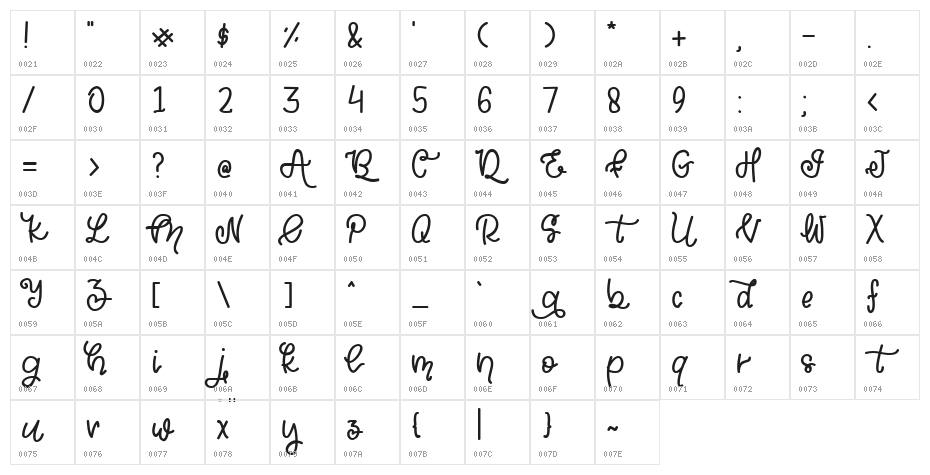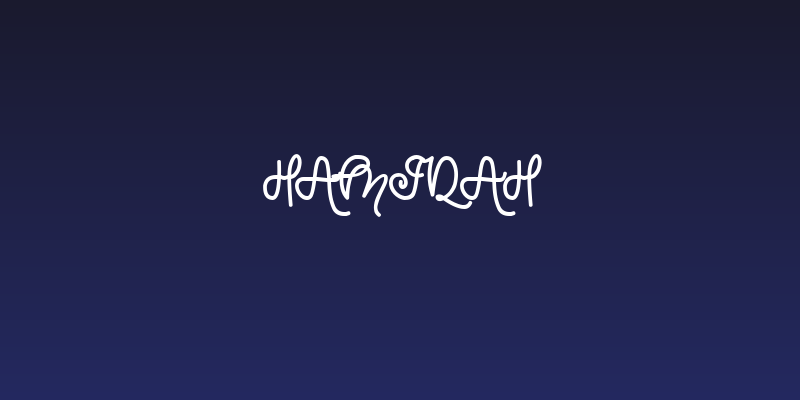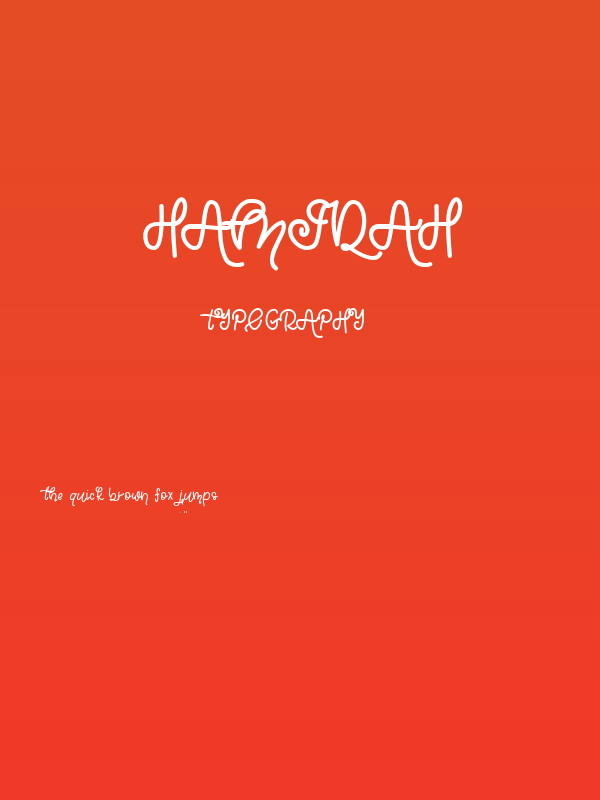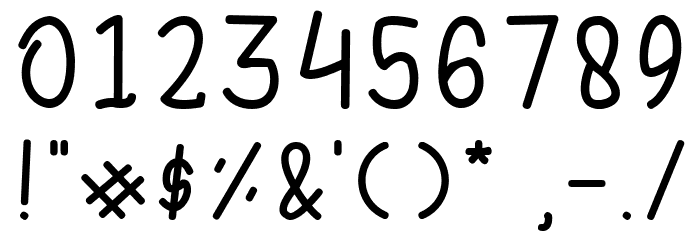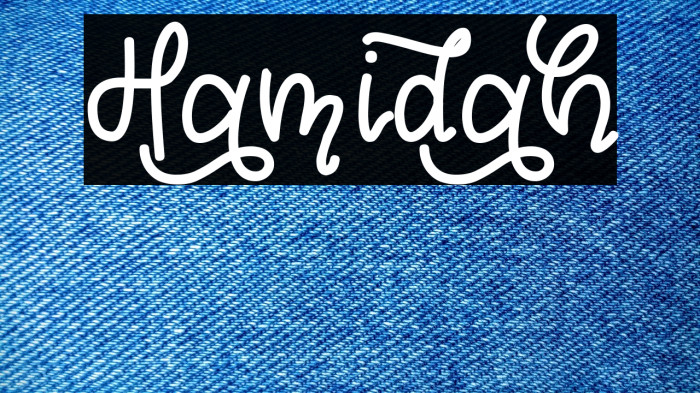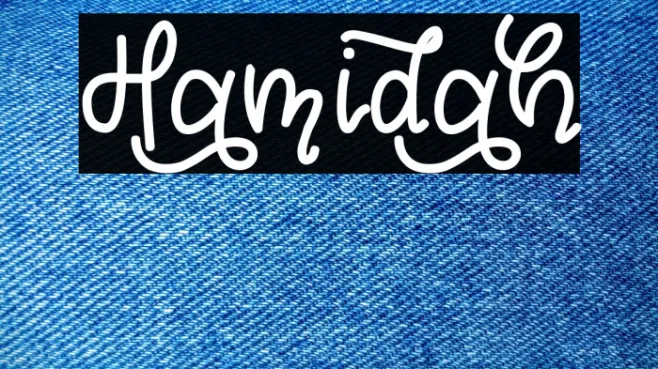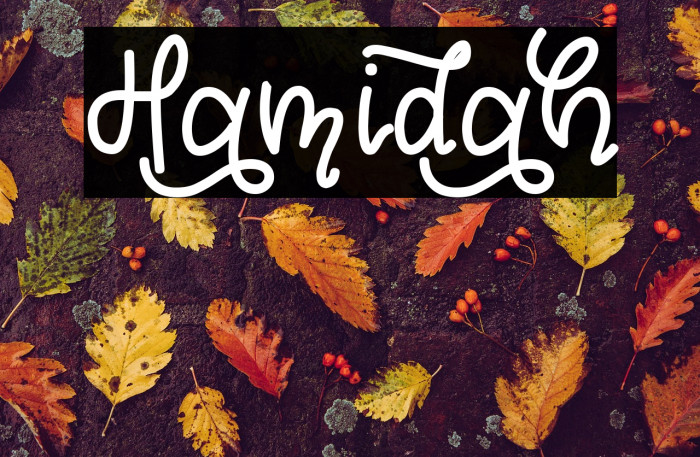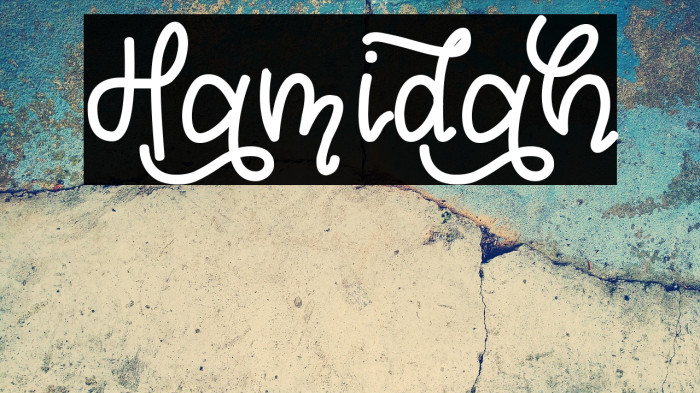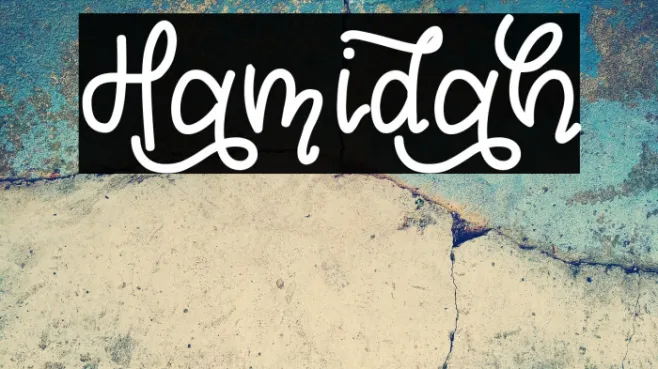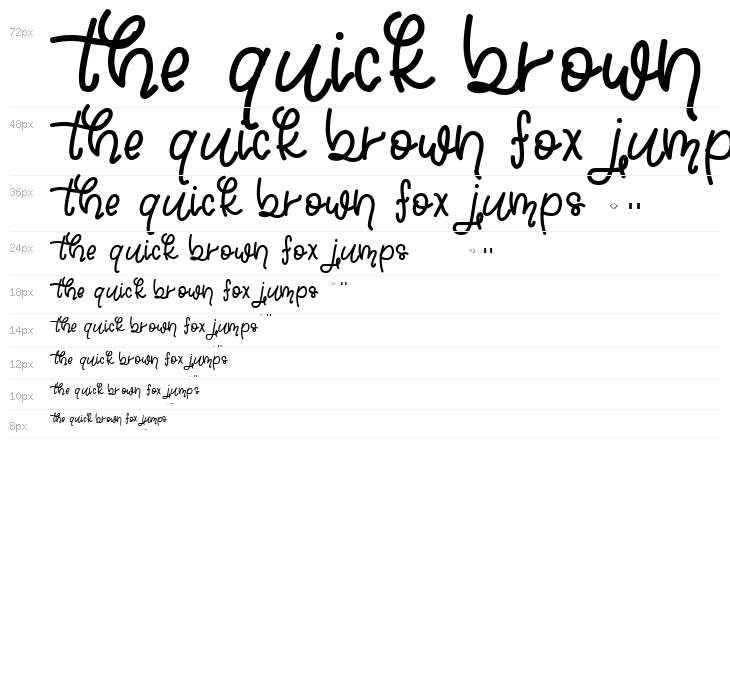
Hamidah Font
Hamidah Description
This font features a playful and whimsical script style, characterized by its flowing, interconnected letters. The uppercase letters are bold and expressive, with unique curls and loops that add a sense of movement and creativity. The lowercase letters maintain a consistent style, with rounded forms and a casual, handwritten appearance. Numbers and special characters are designed to match the overall playful aesthetic, making them suitable for a variety of creative applications. The font's distinct personality makes it ideal for projects that require a touch of fun and informality.
| Use Case | Logos, Invitations, Creative projects |
| Proposed Projects | Ideal for greeting cards, children's book covers, playful branding, and creative invitations. |